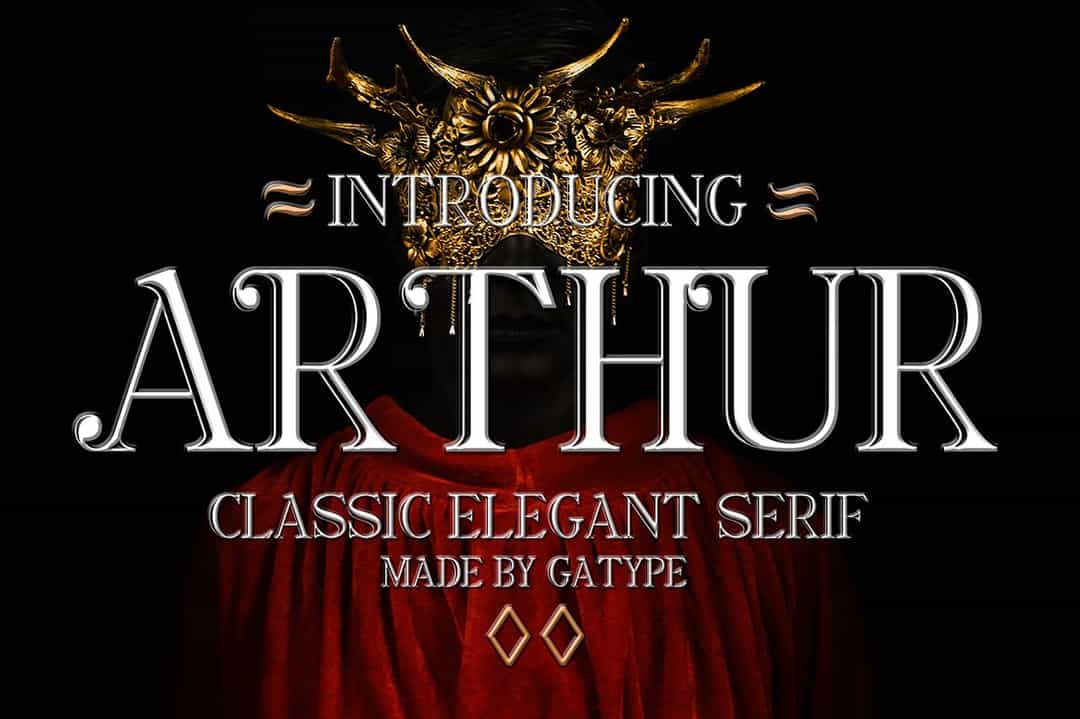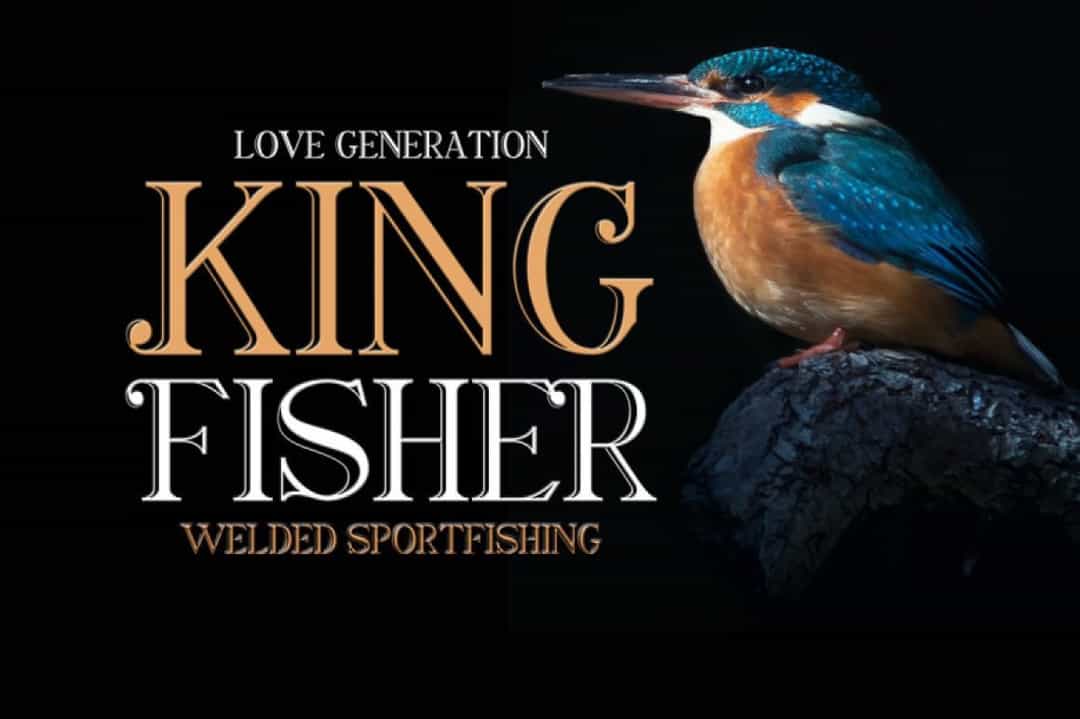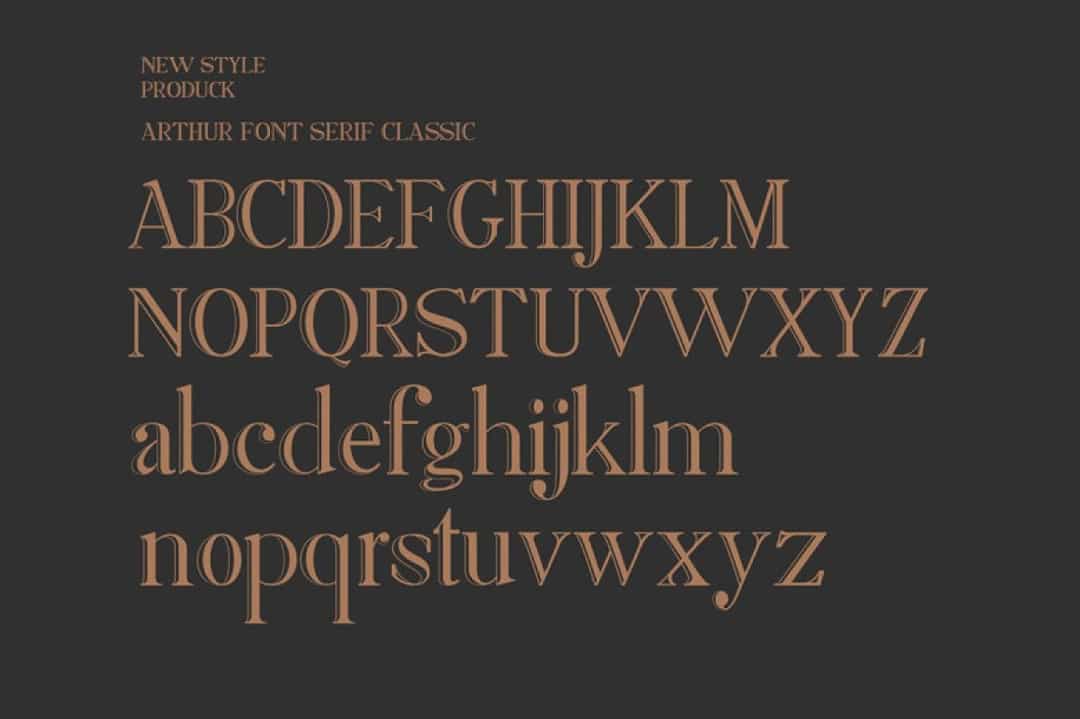
Arthur is an innovative contemporary serif typeface. With its long serifs providing a classic high-contrast typeface style, Arthur stands out among its peers! Bold yet versatile enough for use across uppercase numbers, letters punctuation marks and multilingual letters it has quickly become one of the must-have items for contemporary graphic designers!